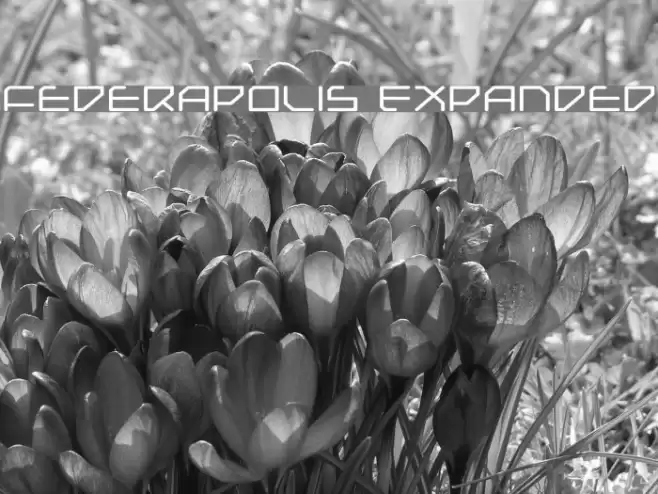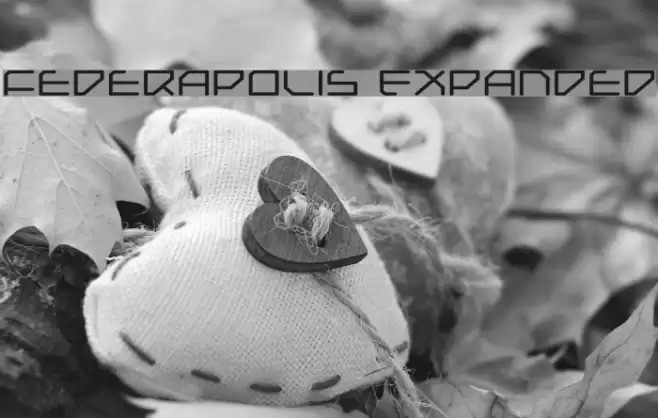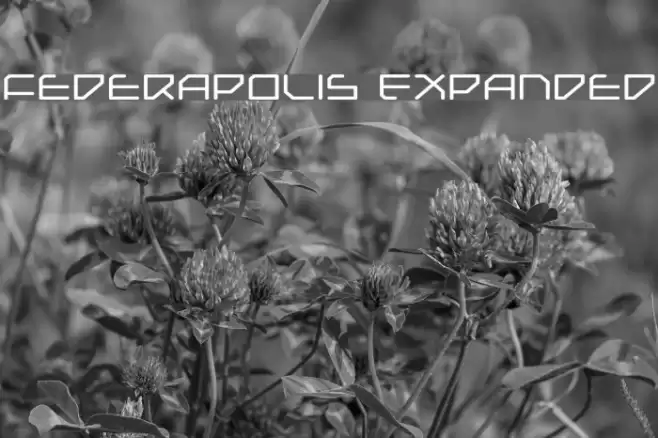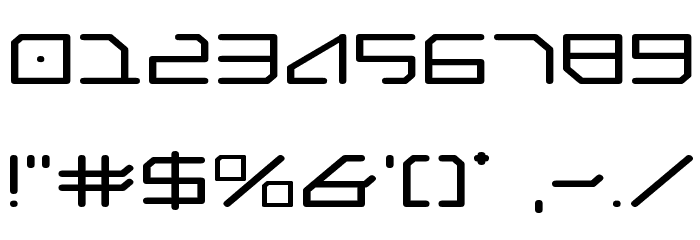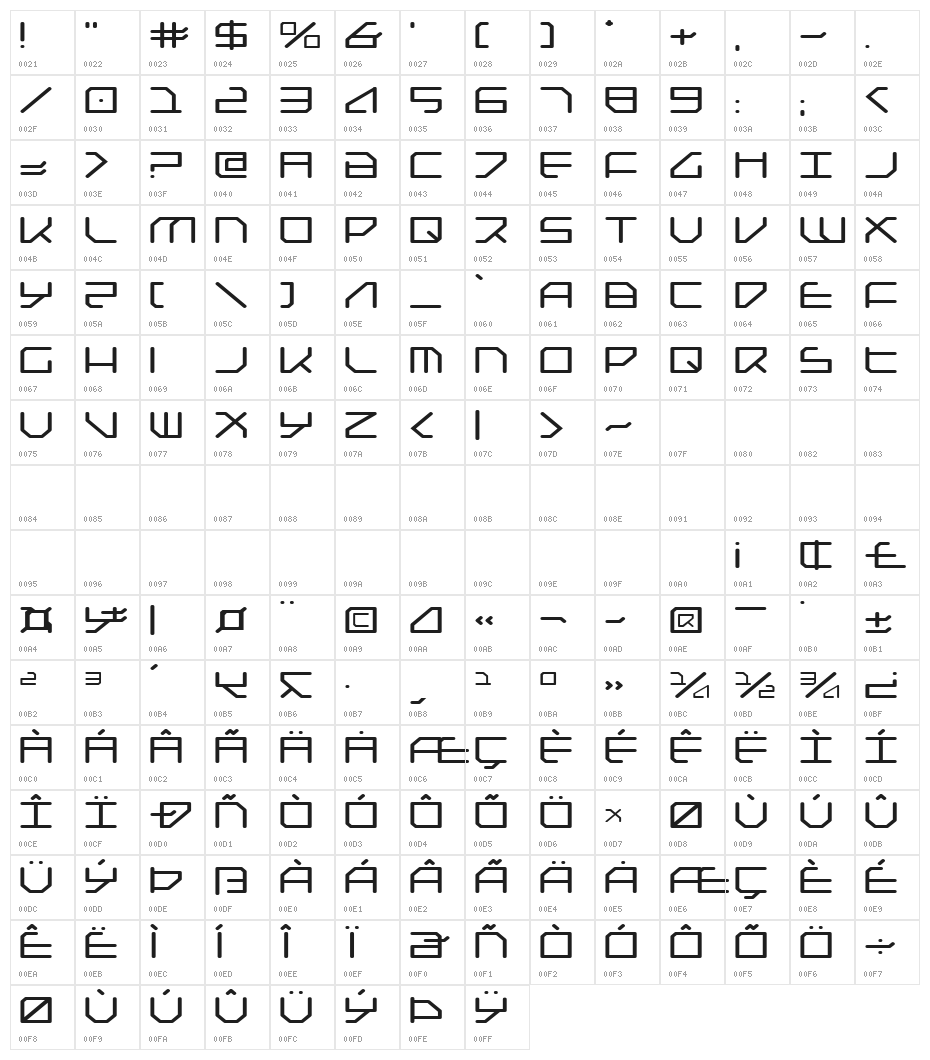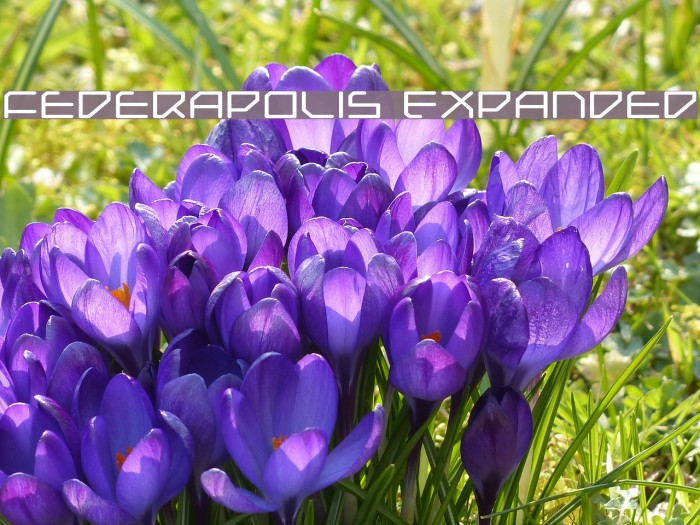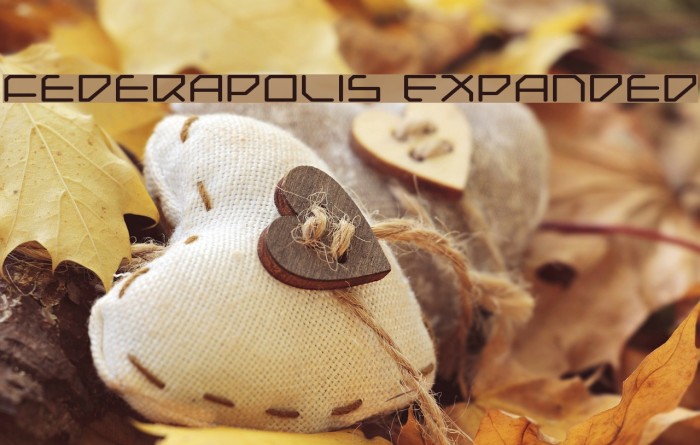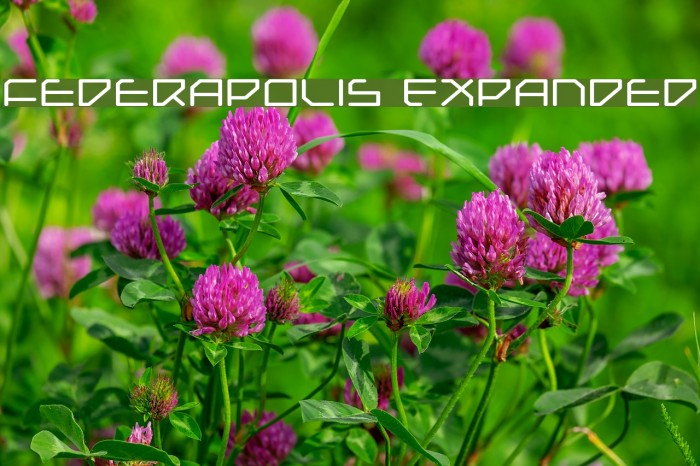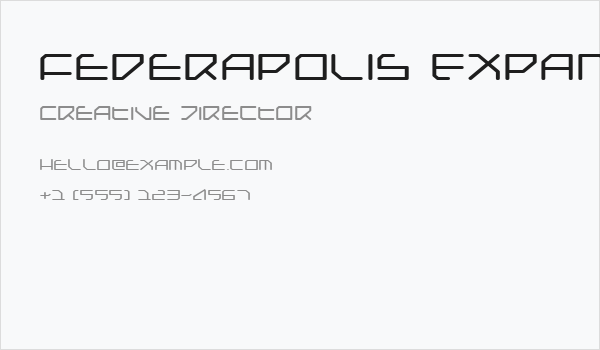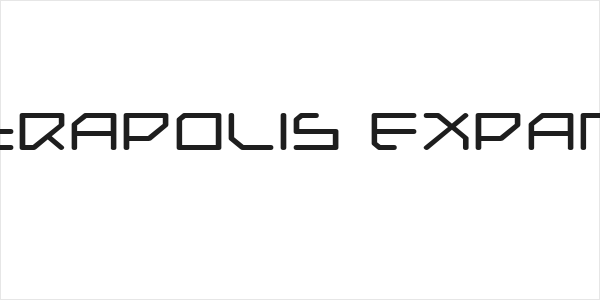
Federapolis Expanded Font
Federapolis Expanded Description
This font features a futuristic and geometric design, characterized by its clean lines and angular shapes. The letters are constructed with a consistent stroke width, giving it a uniform appearance. The design is minimalistic, with a focus on clarity and readability, making it suitable for modern and tech-oriented projects. The characters are slightly expanded, providing a spacious feel that enhances legibility. The font includes a full set of uppercase and lowercase letters, numerals, and a variety of special characters, making it versatile for different design needs.
A futuristic, geometric font with clean lines and expanded spacing from Sci-fi fonts.
- Font: Federapolis Expanded
- Proposed Projects: Ideal for technology branding, sci-fi themed designs, digital interfaces, and modern advertising.
- Width: Expanded
- Character Spacing: Wide
- Overall Style: Futuristic
- Use Case: Logos, Headlines, Digital Interfaces